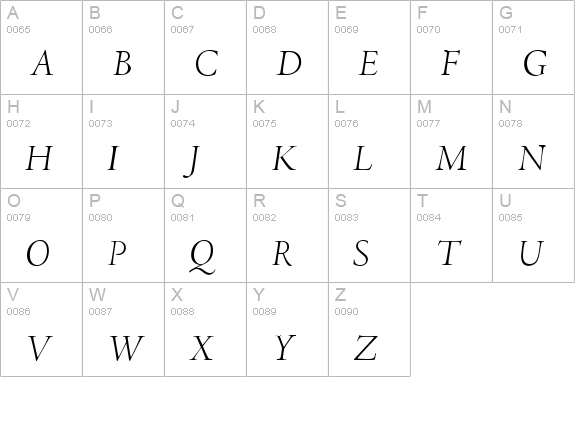
Adobe Jenson Pro Light Italic Display Font Details
Adobe Jenson Pro Light Italic Display is a refined, elegant, italic variant in the Adobe typeface family \xE2\x80\x94 well suited to elegant body text, refined sub-headings, and luxury branding.
Adobe Jenson Pro Light Italic Display font is a beautifully crafted typeface that exudes elegance and sophistication. Its delicate curves and graceful strokes make it perfect for adding a touch of refinement to any design project. The light italic style adds a subtle emphasis and a sense of movement to the text, making it ideal for use in headings, subheadings, or other display purposes. What's even better is that this exquisite font is available for free download at FontsMarket.com. Now you can elevate your designs with this premium typeface without breaking the bank. Don't miss out on the opportunity to enhance your projects with the timeless beauty of Adobe Jenson Pro Light Italic Display font.